Just like web design, type design follows trends. And while there’s always room for an exciting outsider, we tend to see similar fonts released at similar times.
In this month’s roundup of the best new fonts for designers we can see one such trend: most entries are primarily suitable for running text — that is, normal paragraphs like this. It’s an excellent opportunity to compare typefaces and see what characteristics are common to fonts designed for body text.
Euchre
Euchre is a humble sans serif designed for running text. Its proportions and open structure guide your eye along the line, while its character is interesting without drawing attention to itself. The font has a range of features, from small caps to a condensed version, and a variable font is available.
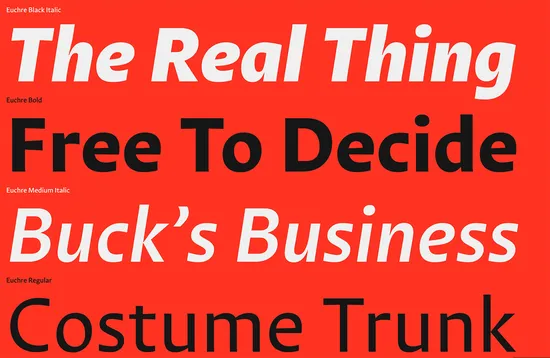
Franziska
Franziska is a confident, solid serif with elements drawn from various traditions. As a result, Franziska has a distinct character all of its own. You can use it for running text, but up the weight and tighten the spacing, and it makes a great display face. There’s a variable font available.
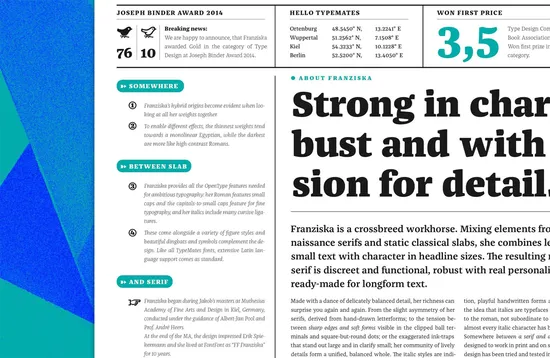
TT Travels Text
TT Travels Text is a new text-focused version of the popular TT Travels typeface. It is a wide, geometric sans serif with a slightly square oval shape. This extremely versatile font is suitable for everything from running text to branding projects.
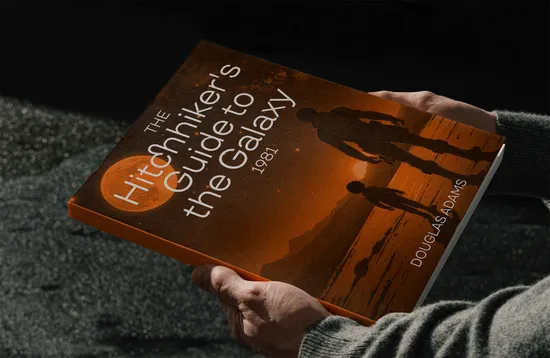
Mundial Narrow
Mundial Narrow is a beautifully executed geometric sans. It’s surprisingly hard to get a geometric sans right. There’s nowhere to hide; everything has to be just right. Mundial Narrow hits the sweet spot. If you need a geometric sans for a branding project, this is your typeface.
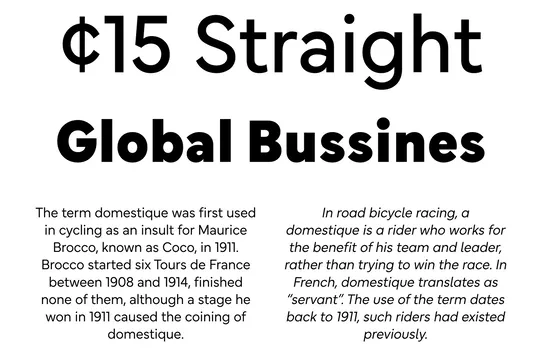
Frida Mono
Frida Mono is part of the ongoing trend for pulling humanist details into geometric typefaces, in this case, into a monospaced font. It features sharp details that set it apart from typewriter-style monospaced fonts, and it’s an excellent choice for UI elements that need to stand out.
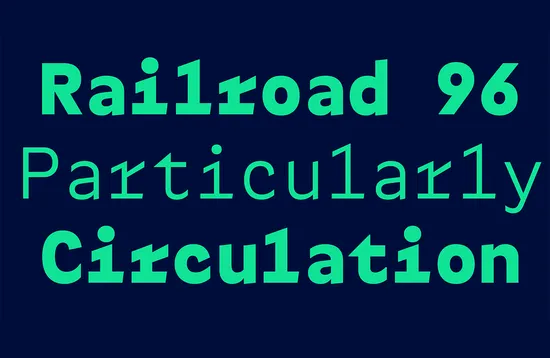
Honesta
Honesta is a grotesque typeface that is imbued with a sense of calligraphy. The high contrast from stem to curve, particularly in the heftier weights, creates a visually engaging design that works well at display sizes.
Barnic Slab
Barnic Slab is a slab serif typeface with sharp outlines and simple shapes. It’s great for delivering straightforward messages with few embellishments. You can use it for branding or UI design, and it works well as a display font.
TT Commons™ Pro
TT Commons™ Pro is an update to the excellent TT Commons. It covers five subfamilies: Normal, Condensed, Compact, Expanded, and Mono. Each subfamily has 11 weights and an accompanying italic. There are not one but two variable fonts available, giving you an enviable typographic palette to choose from.
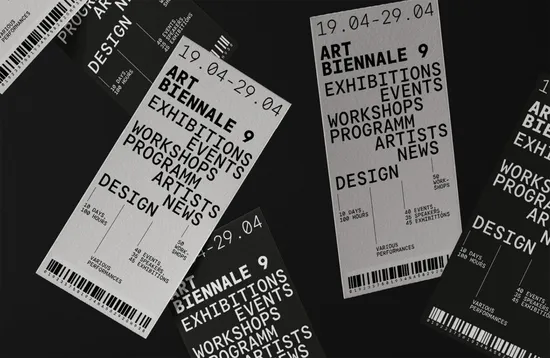
Astronef
Astronef is a modernist sans serif consisting of 8 subfamilies: Base, Extended, Wide, Large, Narrow, Condensed, Compressed, and Super. Each subfamily has nine weights and accompanying italics. The family provides a tremendous amount of flexibility.
Fixo
Fixo is a uniwidth type family — meaning that each character, across all the weights, is the same width. It’s a great choice when you need a variety of hierarchies in a UI design but don’t want to default into a monospaced font.
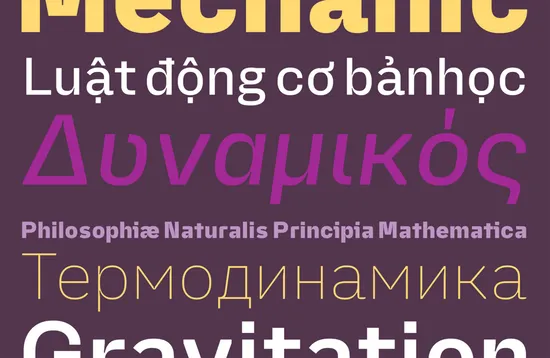
Kigo
Kigo is a whimsical sans serif with retro vibes. Inspired by the shape of a cat, it’s graceful, relaxed, and independent. There’s a regular style, but the rounded is softer and more approachable. A typeface to reserve for times when you need a display font packed with personality.
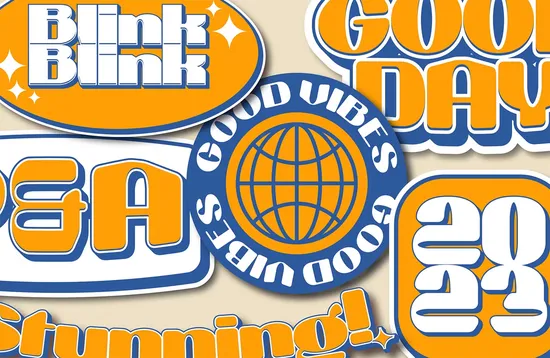
Periodica
Periodica is a graceful, transitional serif with generously curved brackets that soften the letterforms. It’s an excellent choice for large blocks of running text and a great workhorse for business communications.
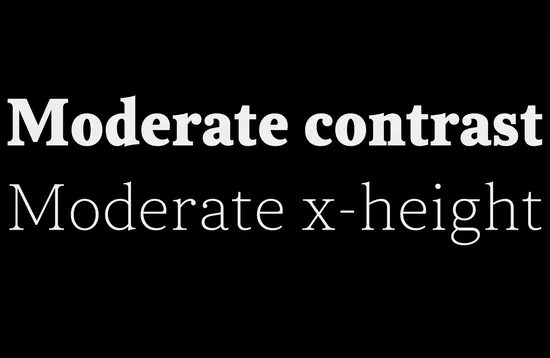
De Britges
De Britges is a bold brush script inspired by vintage music posters. Alternate characters and ligatures make your designs feel more like lettering. I particularly like the numerals.
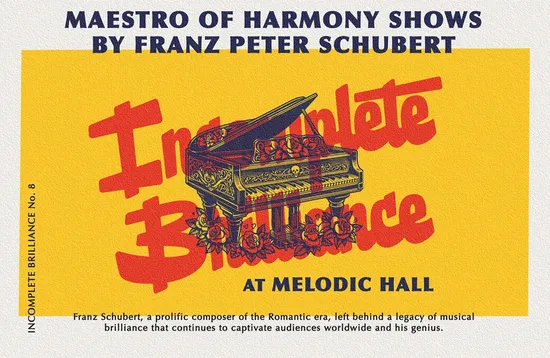
Make Way
Make Way is another contemporary serif that works great for both running text and, when enlarged and tightened, as display text. It has lovely details, like the subtle rounding of the sharp serifs and the teardrop counter on the lowercase e.
Chopin
Chopin is a geometric sans-serif inspired by vintage posters and book jackets. It combines wide and narrow characters to create a unique rhythm that enlivens the text. It’s ideal for logo design, branding, and display purposes.